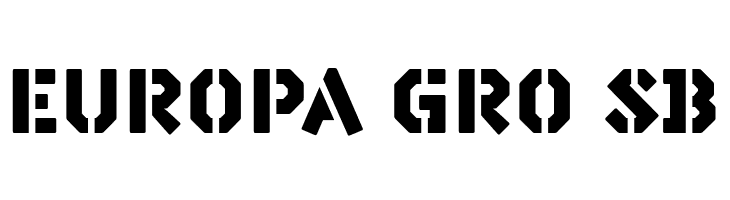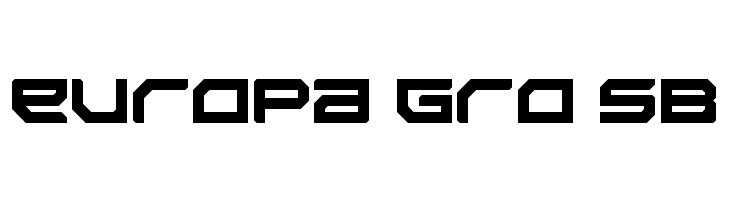
A modern, geometric sans-serif font with balanced proportions and versatile applications.
A bold, italic font with a modern yet classic style, ideal for headlines.
A bold serif font with strong, well-defined characters and a slightly condensed structure.
A bold slab serif font with strong lines and a classic style.
An elegant italic serif font with a classic yet modern appeal.
A playful, casual handwritten font with smooth, rounded strokes.
A bold, flowing script font with dynamic curves and elegant style.
A futuristic, angular italic font with a bold and dynamic style.
A bold, geometric stencil font with sharp angles and solid forms.
A futuristic, geometric font with bold, angular shapes.